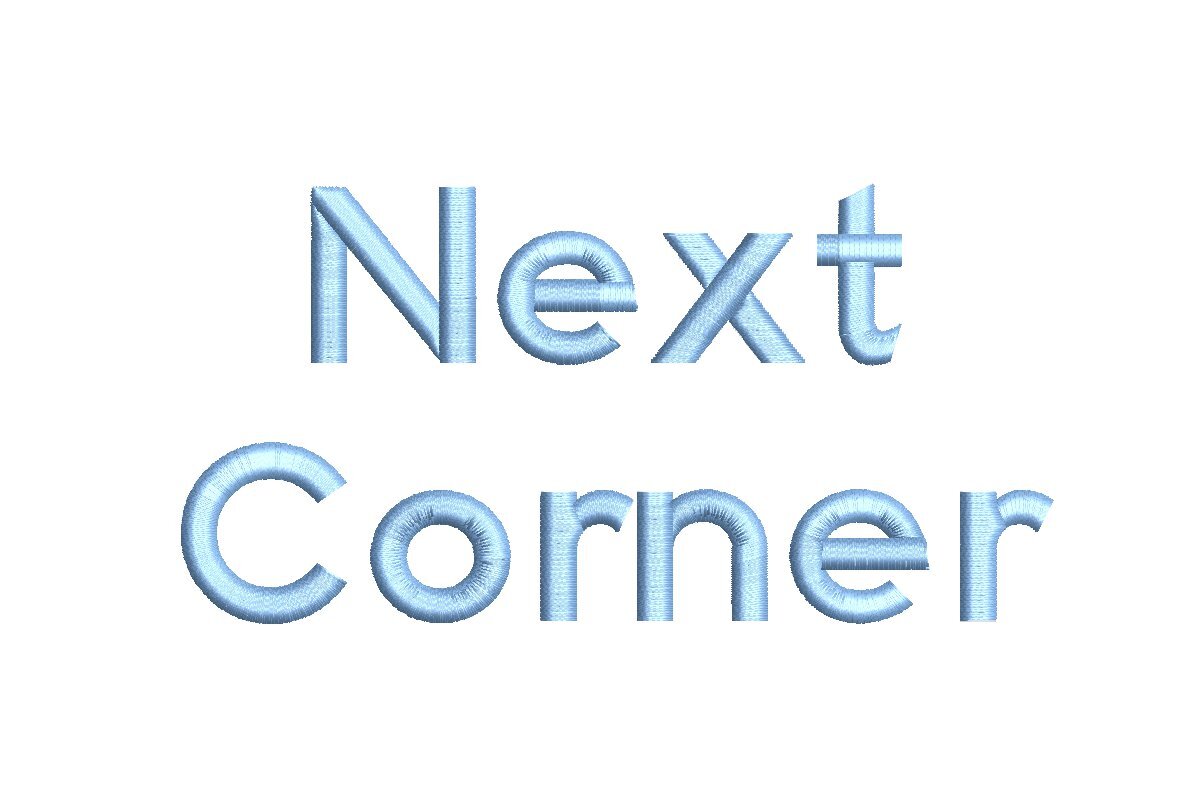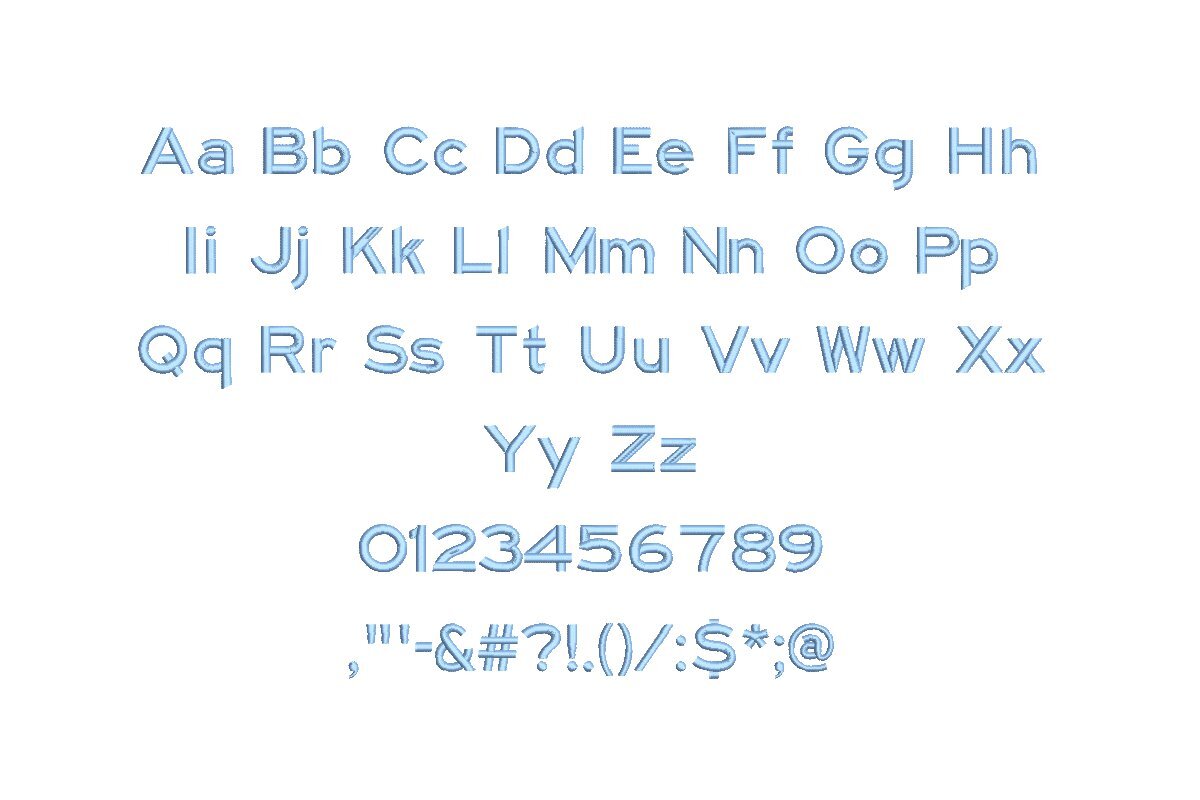
Elevate your embroidery with the Next Corner ESA Font! Perfectly compatible with Wilcom Studio e4.5.6 and Hatch 3 versions and up, this font takes your digitizing to the next level. Crafted with precision, it seamlessly integrates with industry-leading embroidery software, ensuring flawless designs.
Designed for discerning embroiderers, Next Corner ESA Font combines elegance and functionality. Its versatility shines in creating intricate monograms and bold lettering. Transform your embroidery projects into works of art and leave a lasting impression with this cutting-edge font.